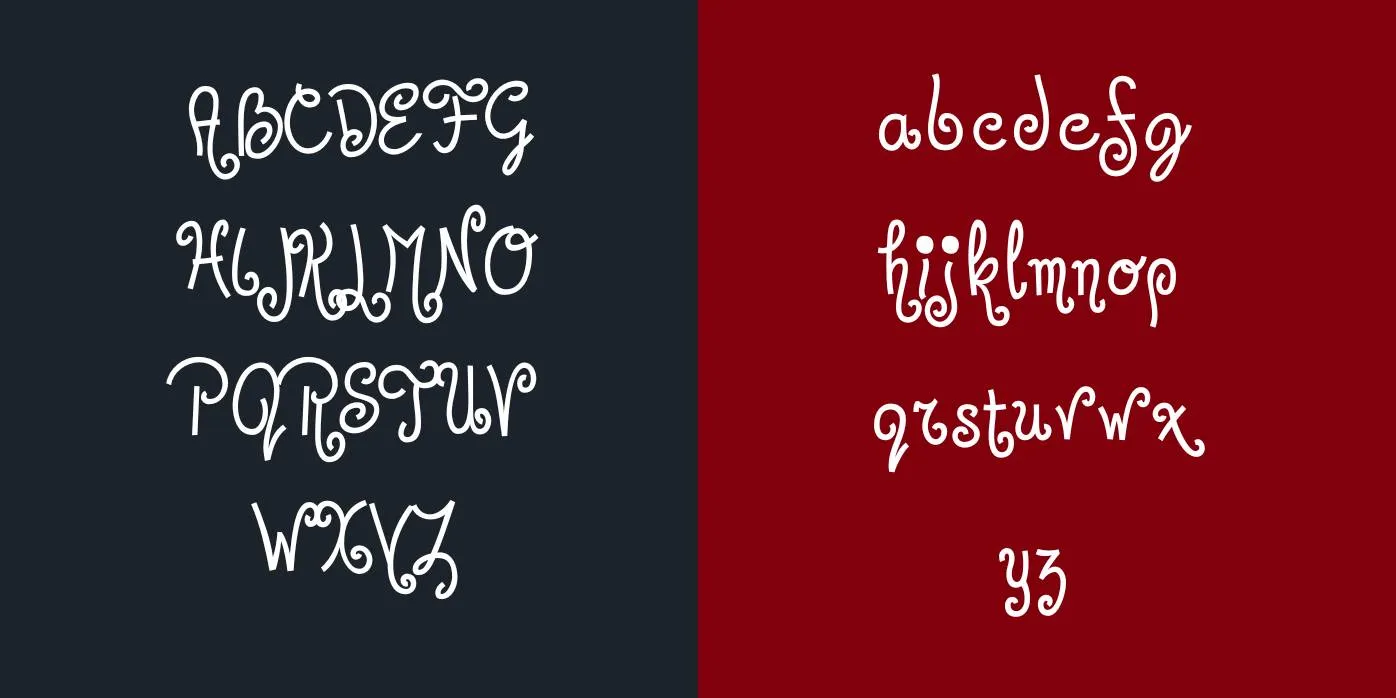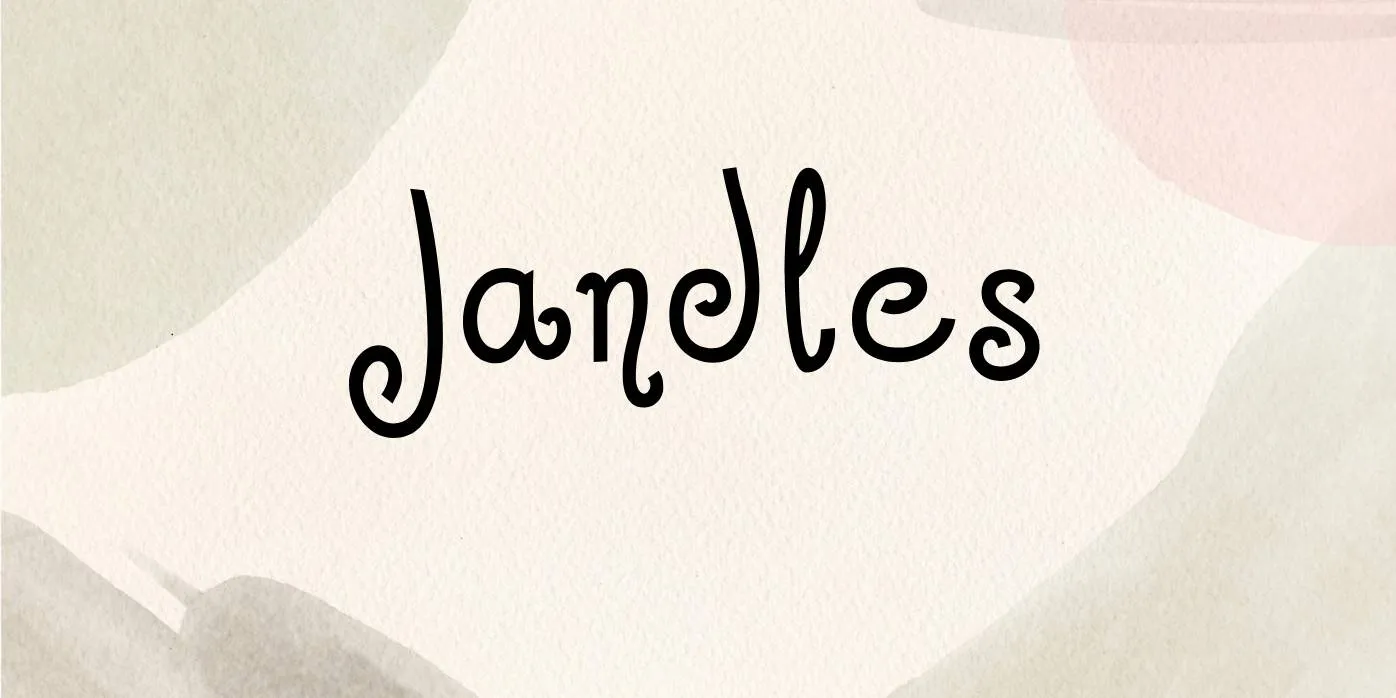
Jandles Font
Here we discuss detailed information about Jandles Font. This typeface is designed by Ray Larabie and manufactured by Typodermic. It is a unique fancy font that has a curly look and you can use it to design many different projects. It contains 225 characters, 189 glyphs, and 1000 units per Em.
You can also use it for pairing with other fonts like raleway font to give a more attractive and amazing look to your projects. Usage You can make so many different designs using this curly font. It has many amazing features like characters, symbols, small letters, capital letters, punctuations, and special characters. For making attractive kids-related items you can use it for making books for kids.
It can also be used to design cosmetic products. You can make attractive banners, posters, flyers, and eye-catching brochures by using this typeface. You can also use it for product packing and sometimes for branding purposes. It is considered a good source for both print and digital media.
FAQs! Who is the designer of Jandles Font? This stunning font is designed by Ray Larabie and manufactured by Typodermic. It is a very nice fancy font.
Is Jandles font professional? Yes, it is a stunning professional font and can be used to design so many different projects like printing products, cosmetics printing making material for kids, and much more. What type of generator tool is the Jandles Font? An online generator tool that can be used to convert your simple text into a stylish look without downloading the font by performing copy and paste format.